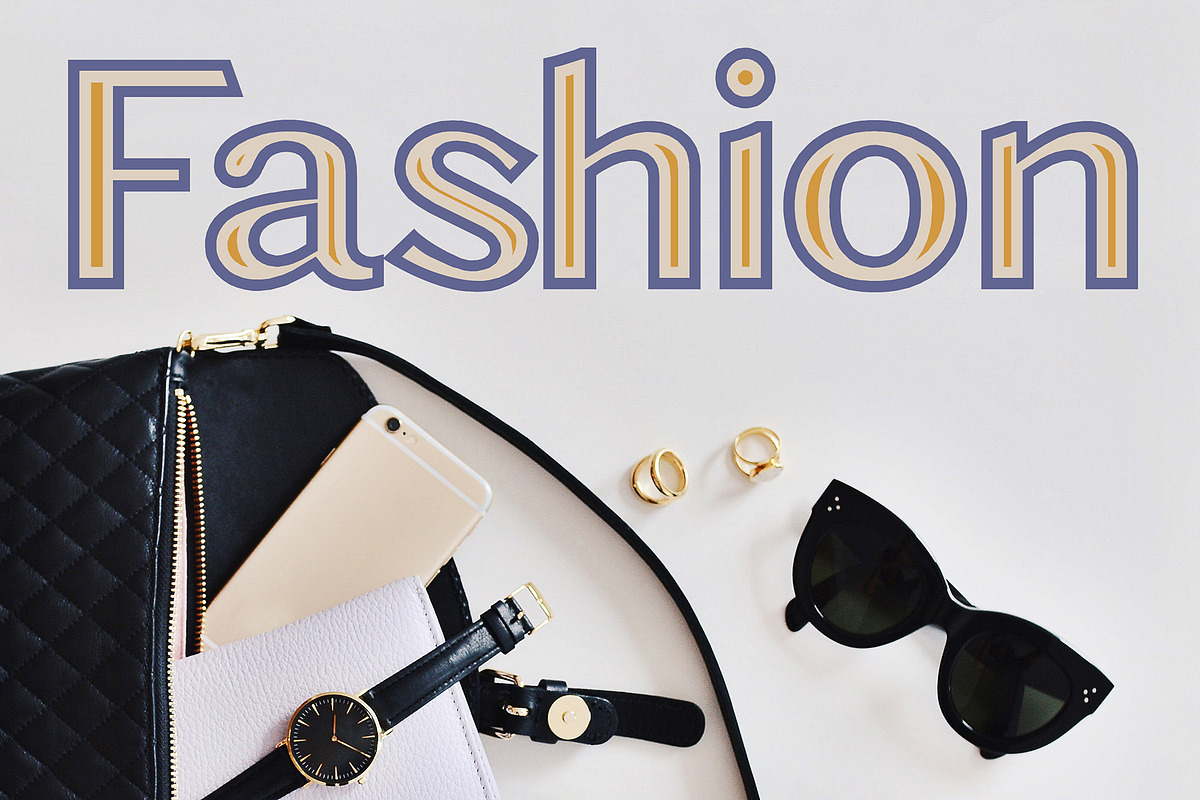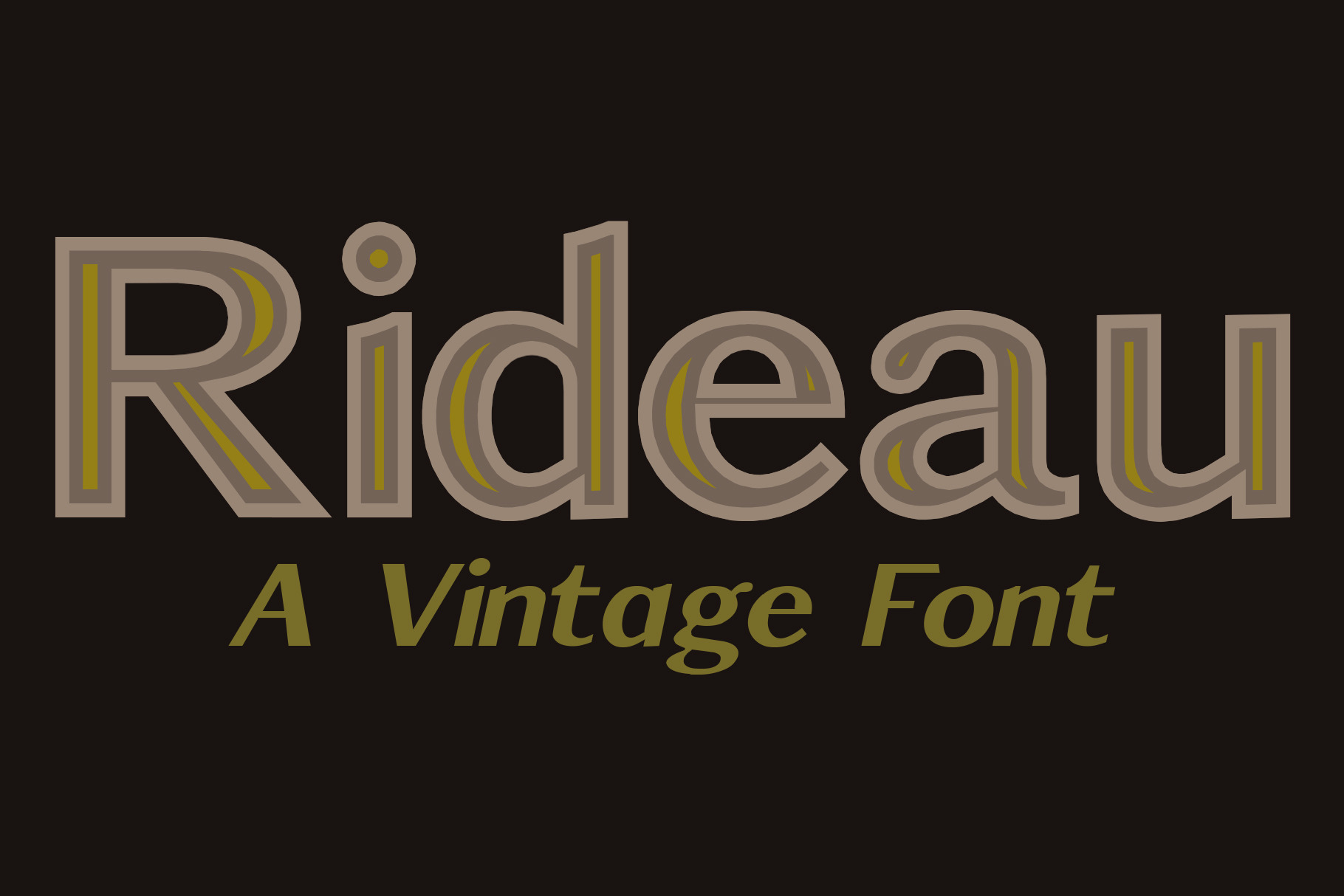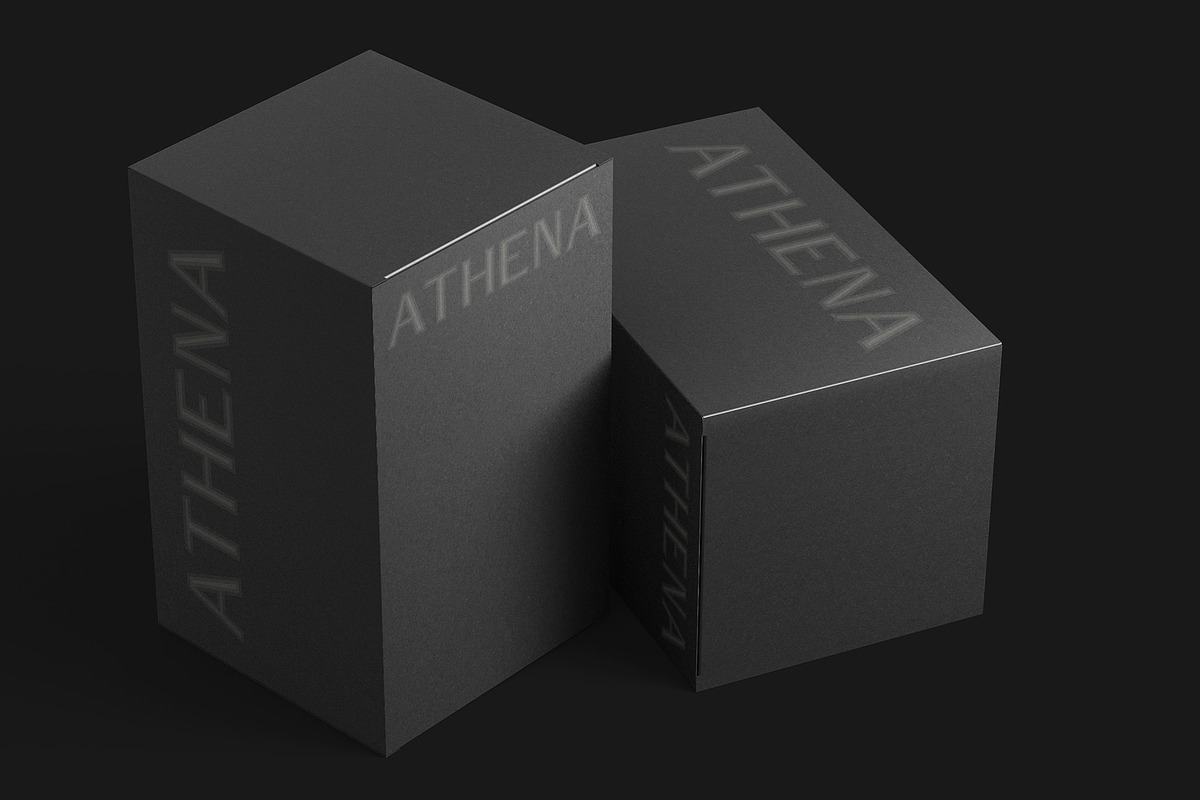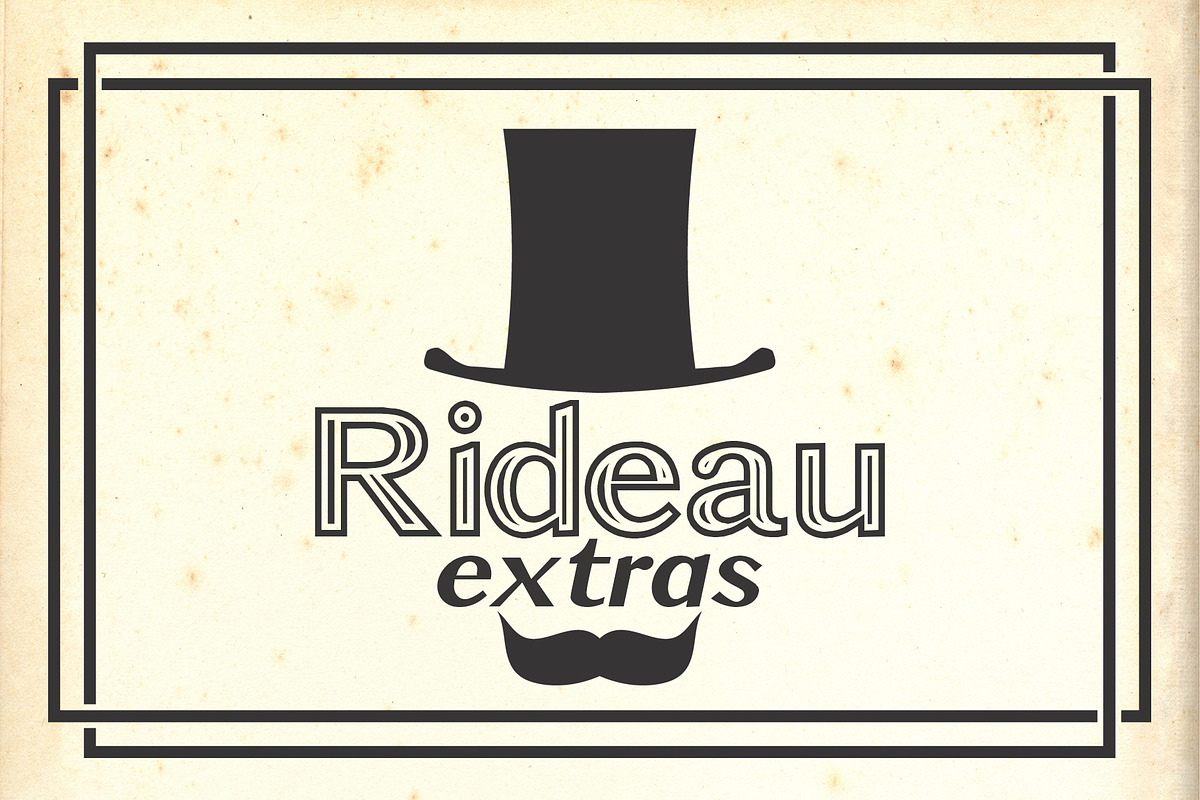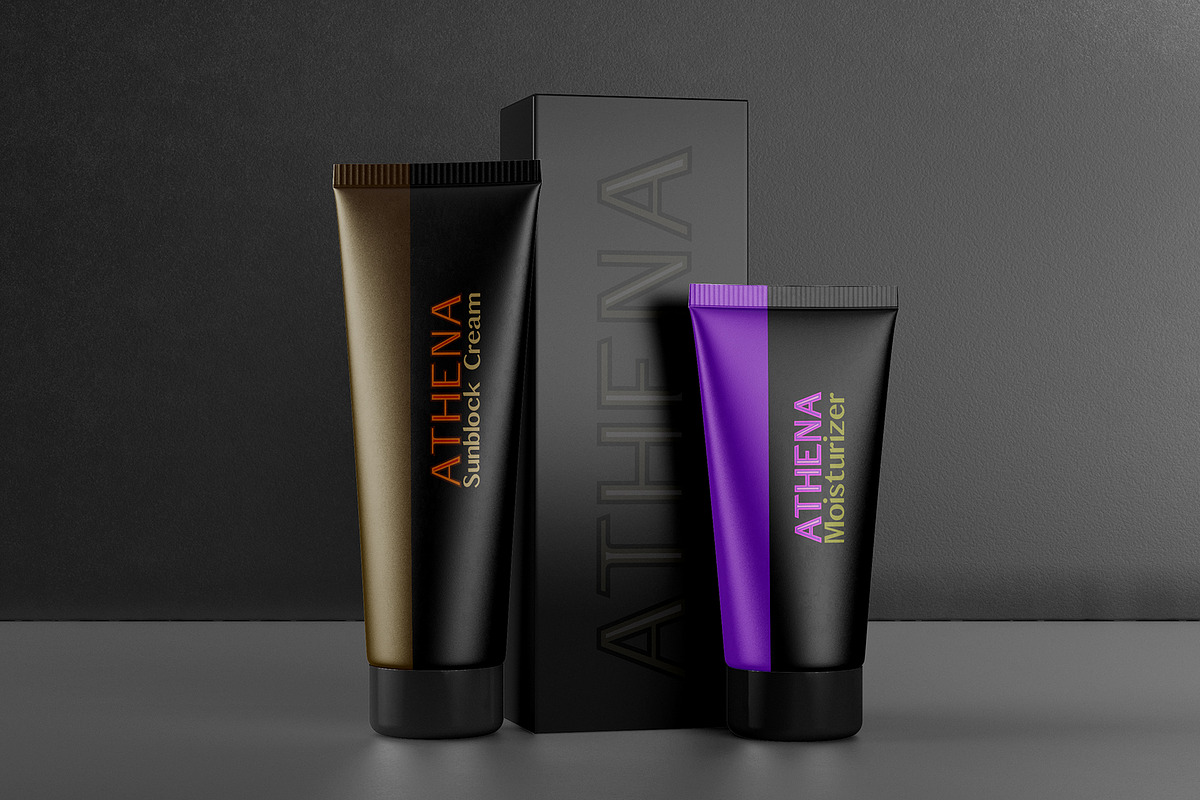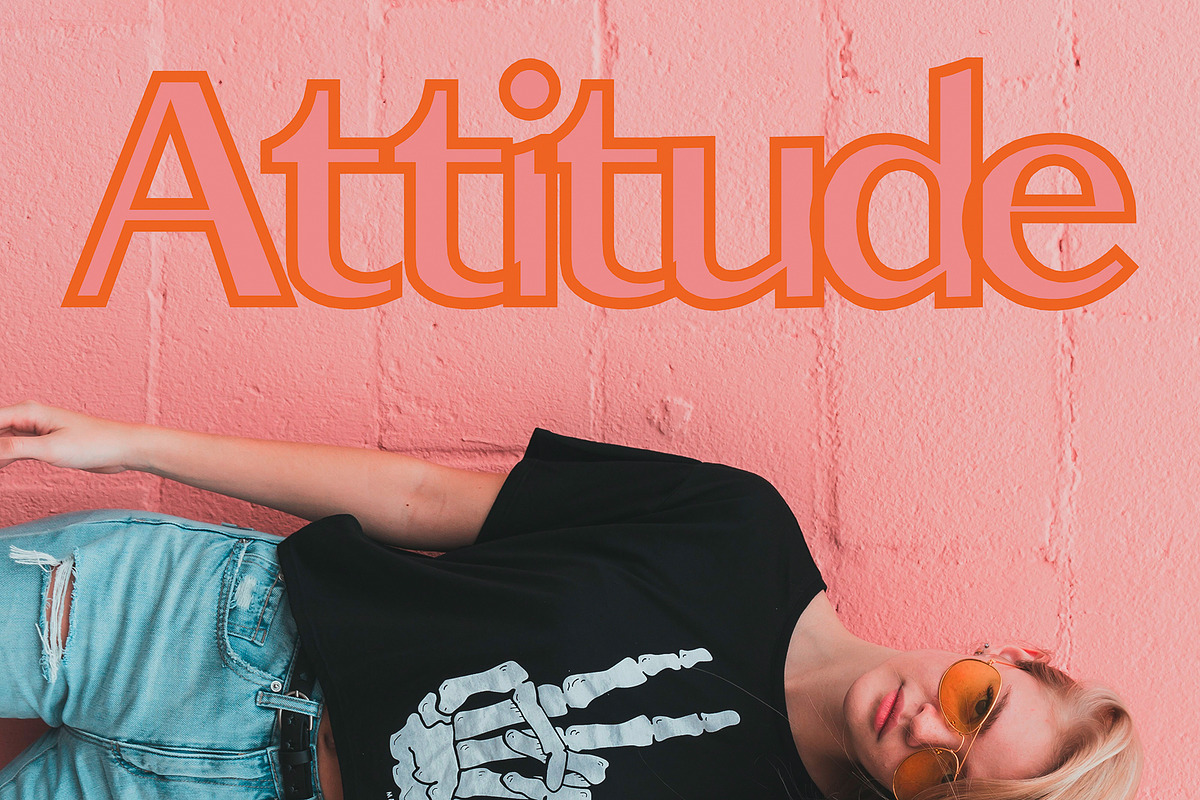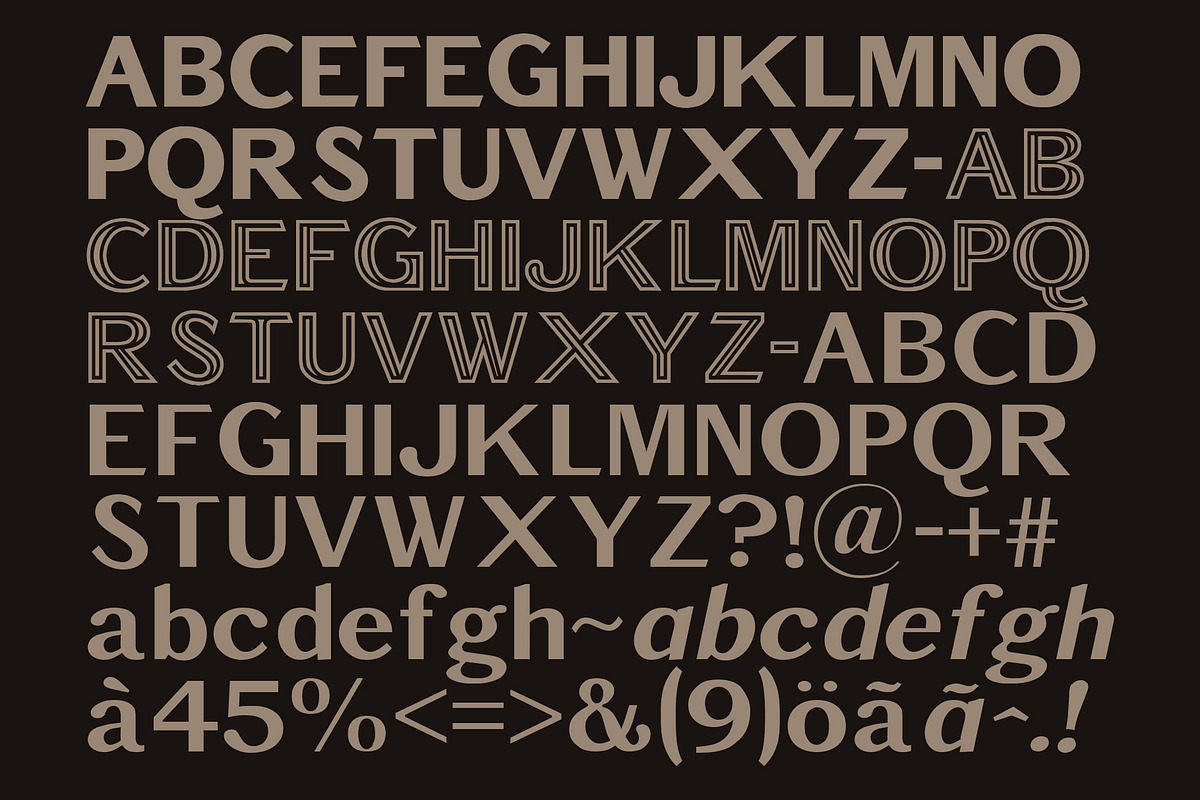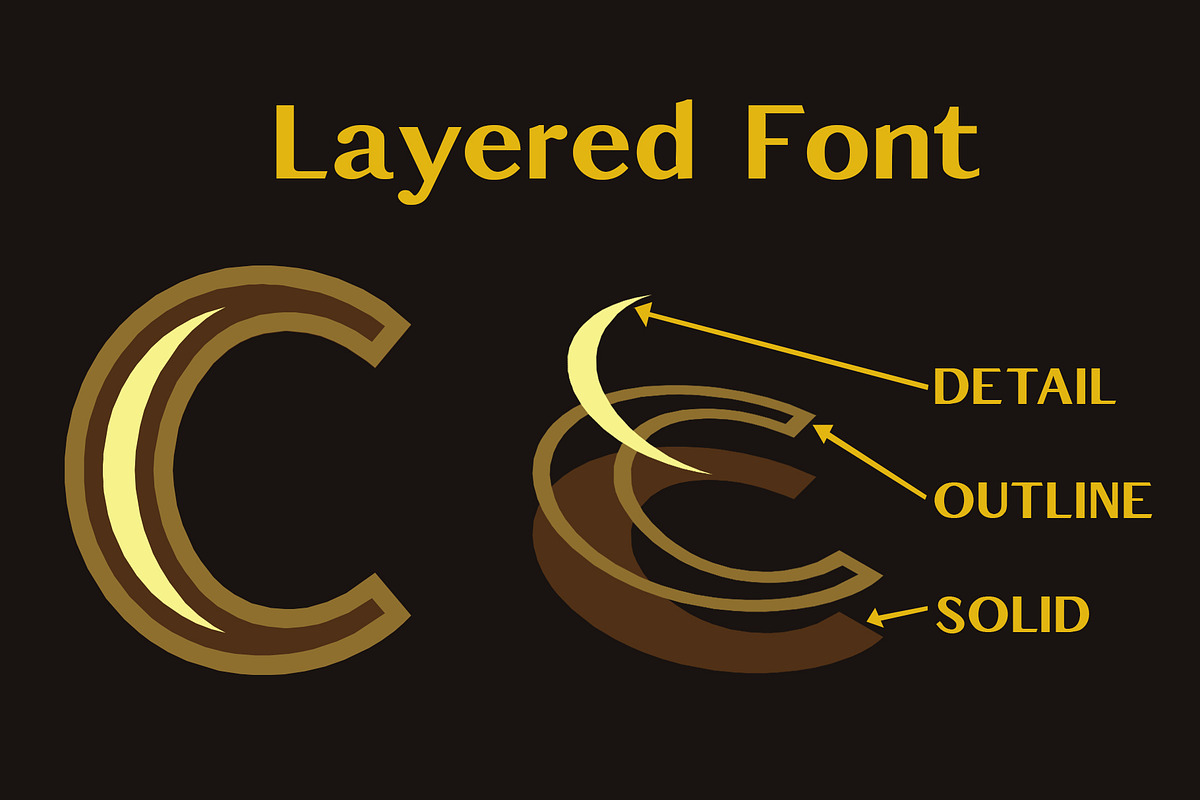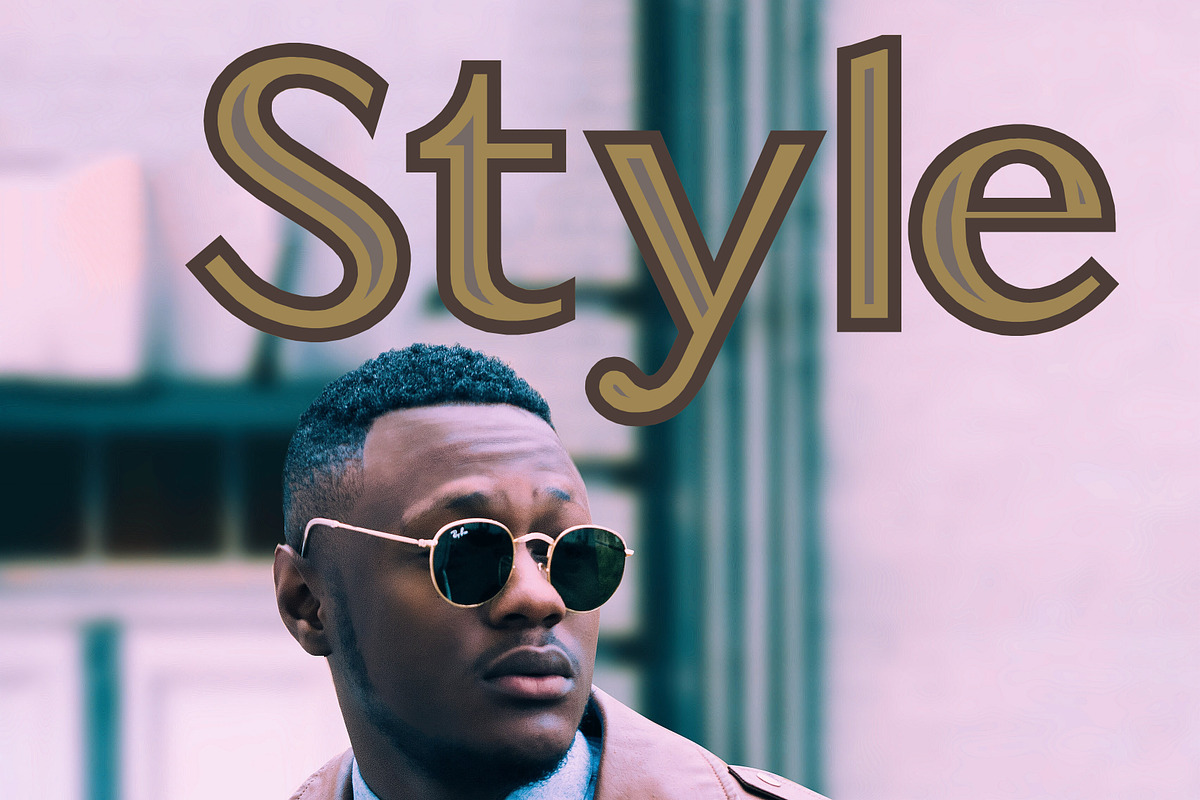
Rideau - Vintage Font
Rideau is a Vintage Layered Font.
Inspired by old font specimens from Brazil.
It can be used for package, signs, invitation and much more.